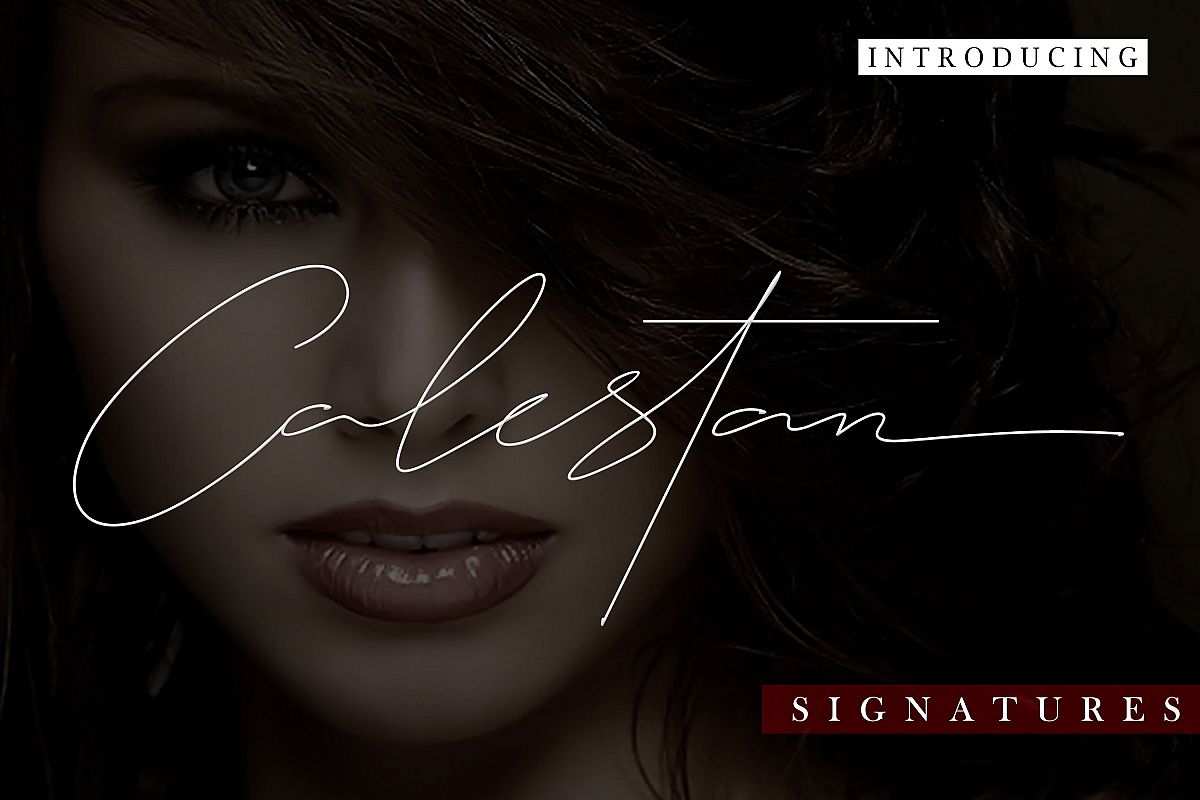
Calestan
Calestan is a beautiful high-end fashion font that makes logos, posters, wedding invitations, blog posts, social media, and much more interesting!
Calestan includes more than 110 ligature to make everything look truly handmade, and alternately for each letter.